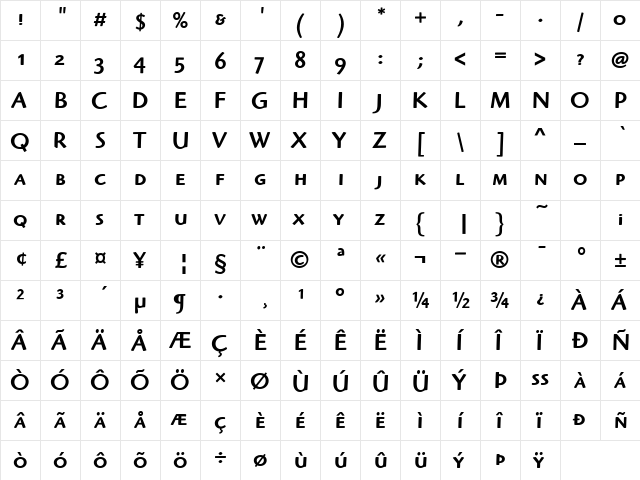
HighlanderITCSC-Medium Medium Font Preview
HighlanderITCSC-Medium Medium
Design Context for HighlanderITCSC-Medium Typeface
HighlanderITCSC-Medium is a composed and adaptable typeface that performs quietly and consistently across a wide range of design contexts.